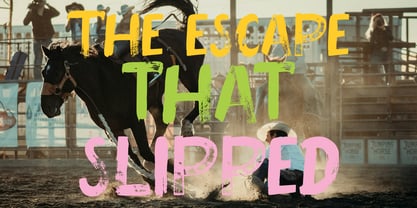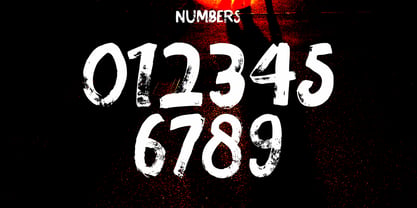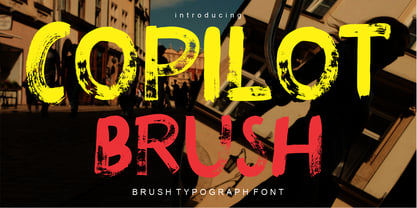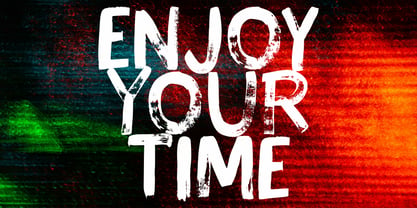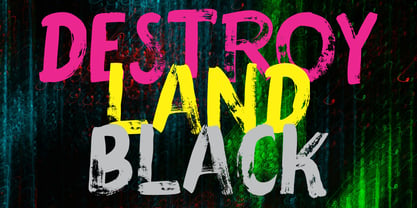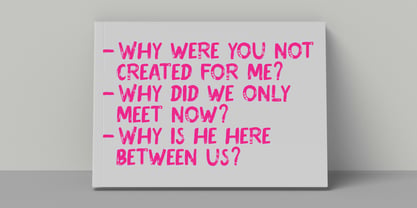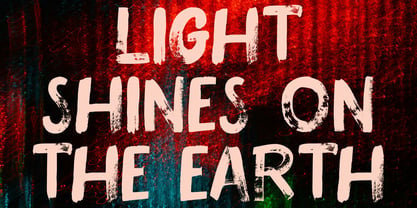
Copilot Brush
by Gian Studio
The Copilot Brush Font Family was designed by Yusliana M Isa and published by Gian Studio. Copilot Brush contains 1 styles. More about this family
Copilot Brush font is a powerful, rugged display typeface that utilizes a heavy, integrated distressed texture to evoke a sense of age, grit, and authentic, vintage wear-and-tear.
This bold, all-caps Distressed Font has a slightly rounded, block-like structure that ensures excellent readability, while the intentional noise and speckling within the letterforms give it a genuine stamp or screen-printed aesthetic. The rough texture makes the Copilot Brush typeface perfect for projects that need to feel handmade, weathered, or industrial.
Use this versatile display font for creating vintage t-shirt designs, branding for craft beer or coffee, grunge music album art, rustic signage, or custom graphics for outdoor and adventure apparel.
It’s the essential tool for achieving a convincing distressed effect in titles and headlines.